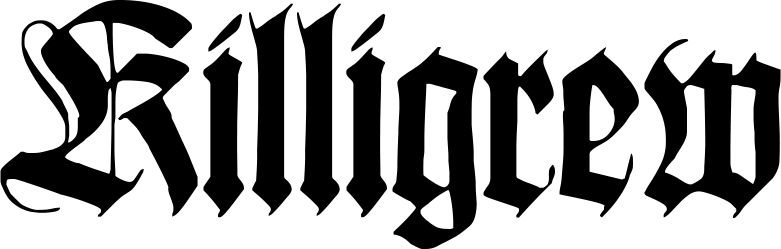
Killigrew Font
Killigrew is a medieval-style gothic font, all its characters are designed in two different styles, so it adds a little variety to your graphic work like logos as a professional graphic designer.
Although this font doesn’t have high readability, the eye-catching look of this font makes up for it and draws the audience’s attention to your content by conveying a sense of nostalgia.